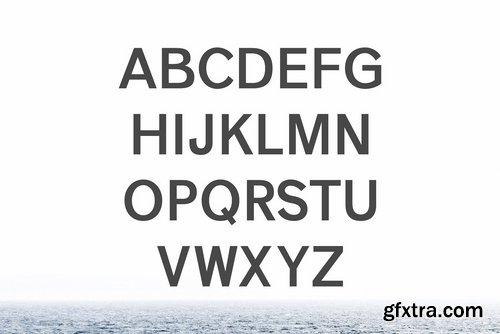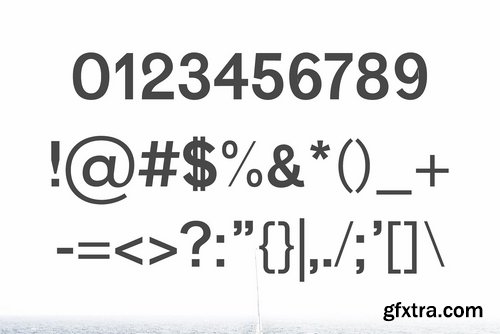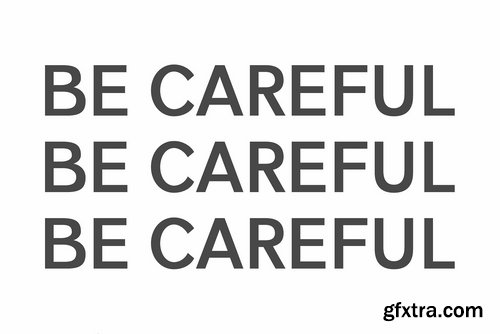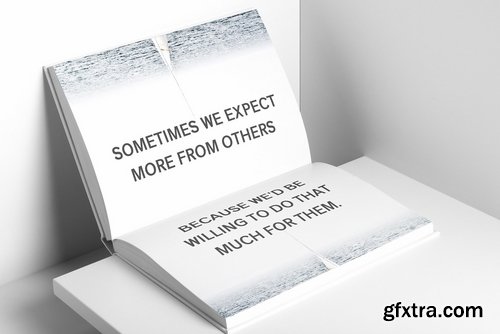
Vengeance Sans Serif Font is a beautiful serif font comes with 7 different weights. It includes all basic glyphs with Non-English characters. It’s a lovely and unique sans serif font in our store, allowing you to make each word look completely stylish! It Suits best for for headlines, posters, branding, packaging, presentations, logo, quotes, titles, magazines headings, web layouts, advertising, invitations, packaging design, books, and nearly any creative design.